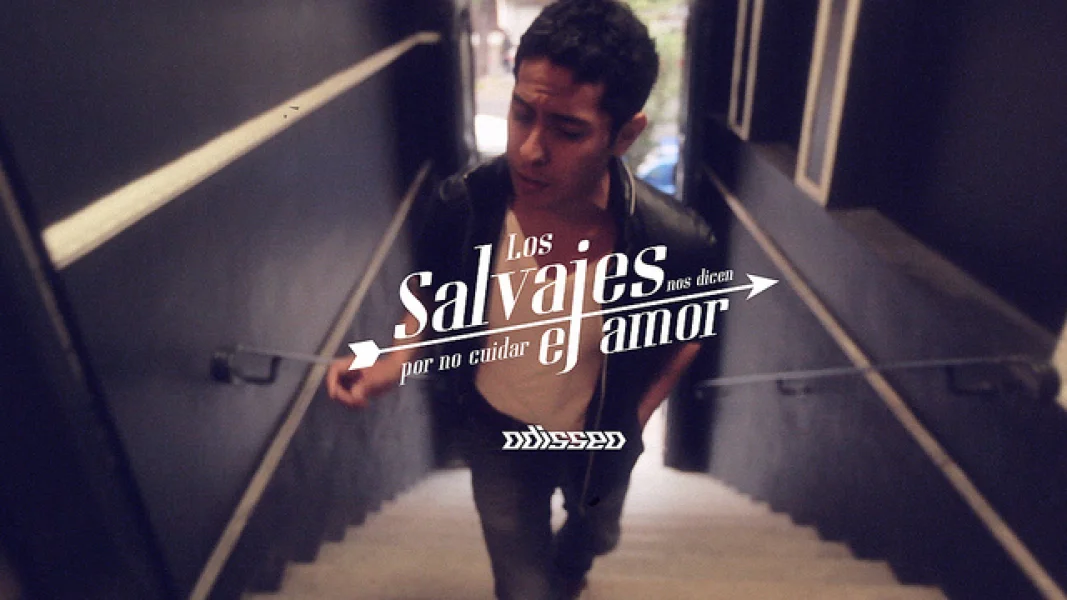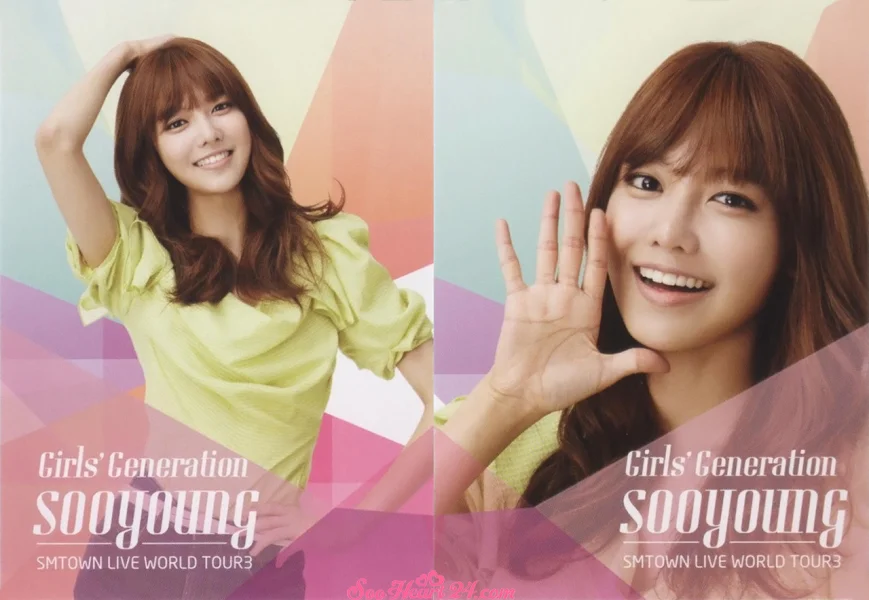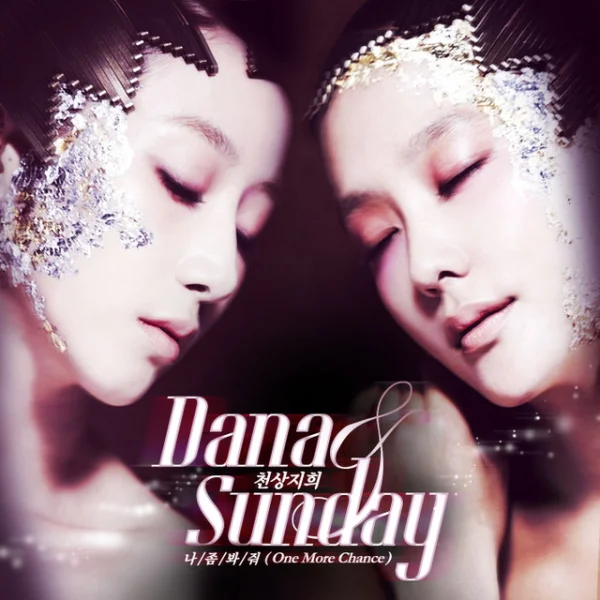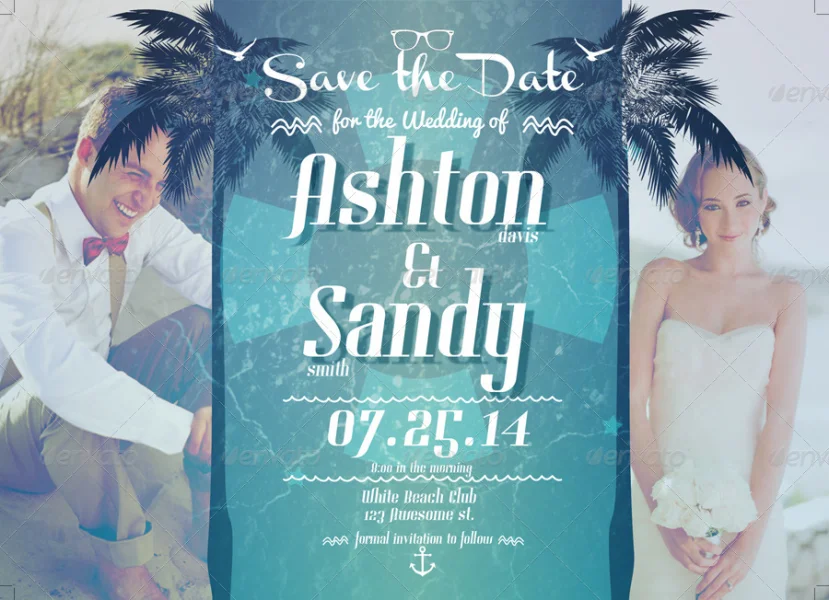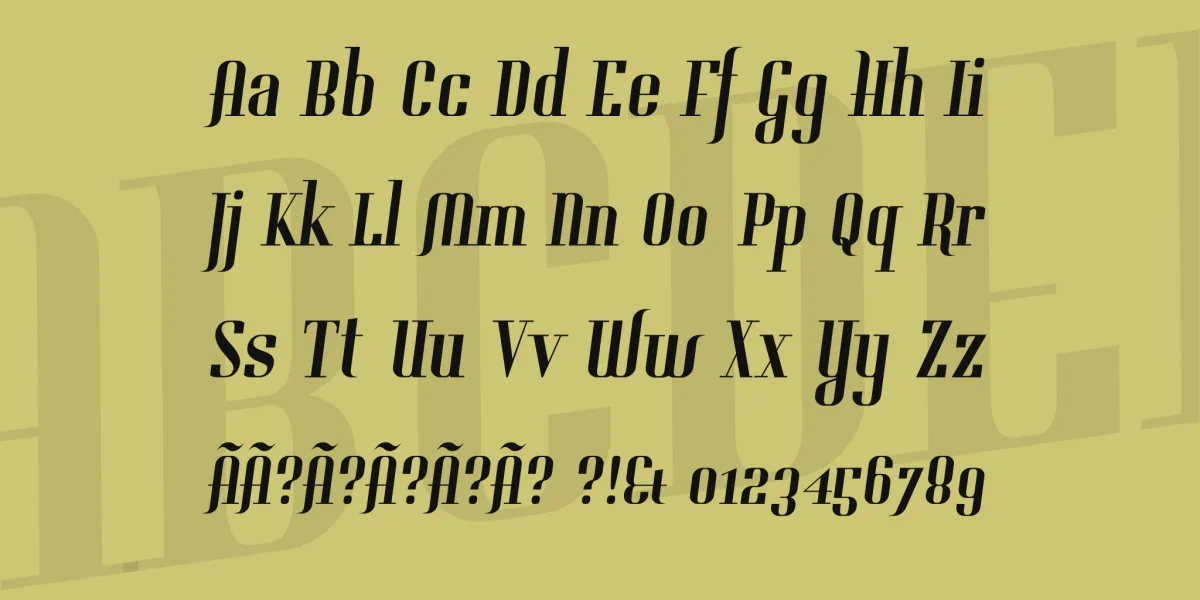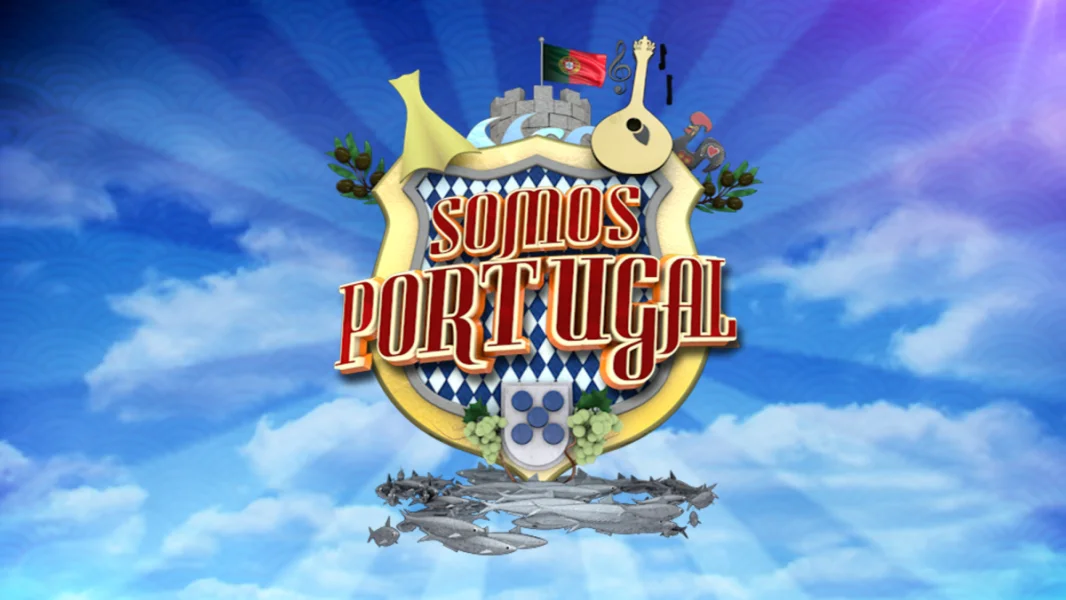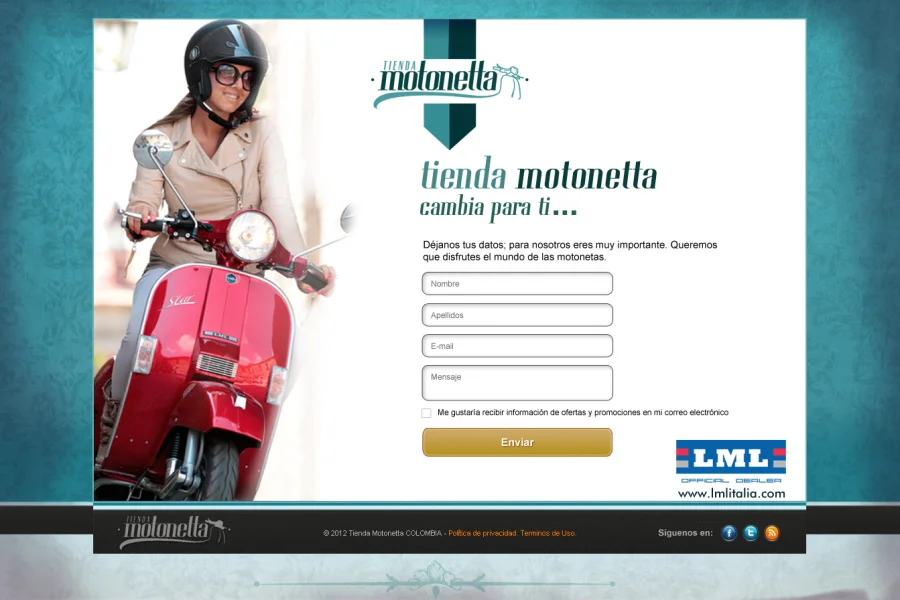
My dad used to smoke a lot of cigarettes in the sixties, back when it was still perfectly healthy. I fondly remember the pretty boxes they came in, with gold leaf lettering, chic colors and a plastic wrap that would stick to your fingers. I really liked those tall, stylish letters they used for the brands, so I made this font to look like I remember them.